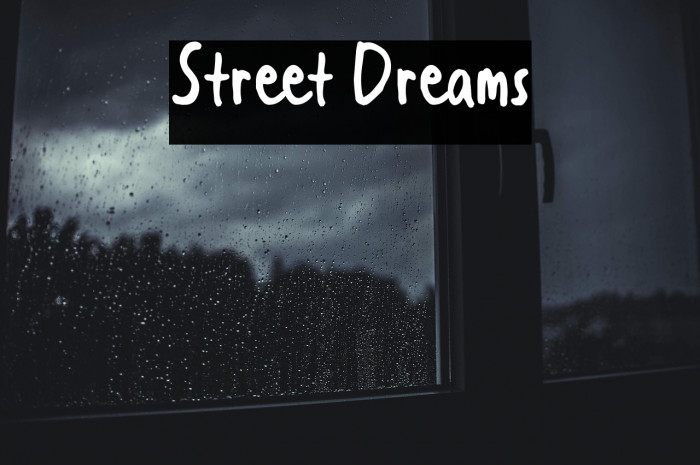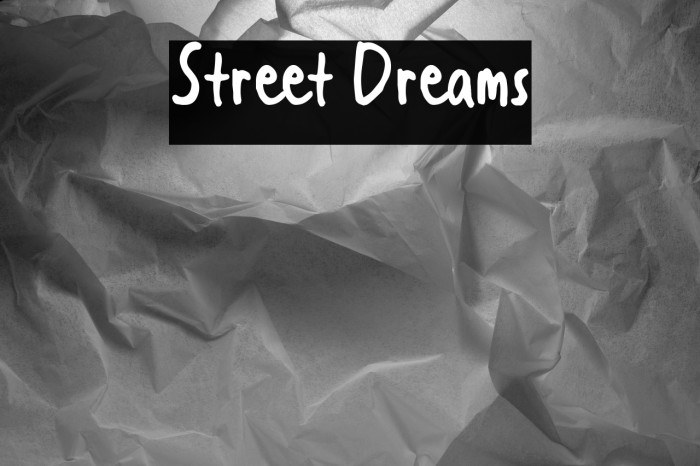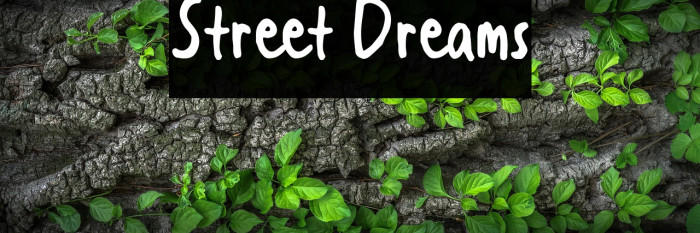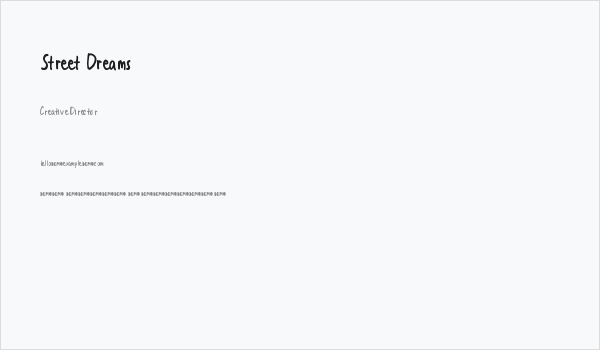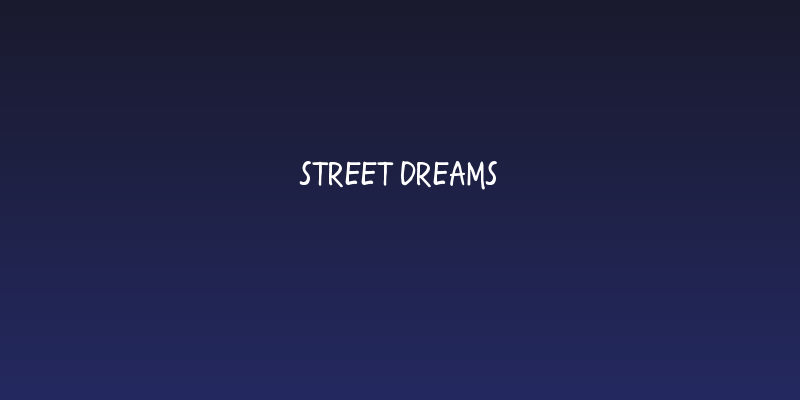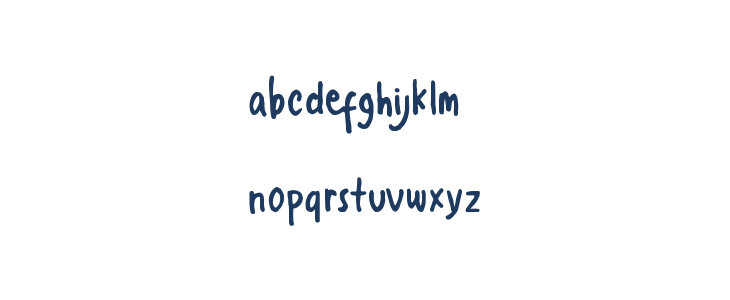
Street Dreams Font
Street Dreams Description
This font features a playful and casual handwritten style, characterized by its irregular and slightly whimsical letterforms. The uppercase letters are bold and rounded, giving a friendly and approachable feel, while the lowercase letters maintain a consistent flow with a slightly narrower width. The overall appearance is informal, making it suitable for creative and fun projects. The characters are well-spaced, ensuring readability, and the font includes a full set of uppercase and lowercase letters, numbers, and a selection of special characters. Its unique style makes it ideal for projects that require a personal touch.
| Proposed Projects | Ideal for greeting cards, children's books, playful branding, and casual invitations. |